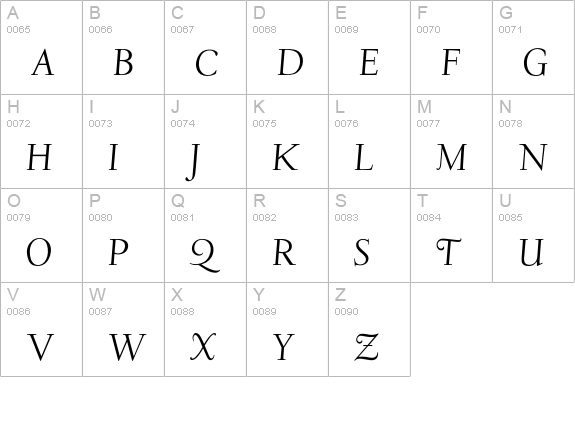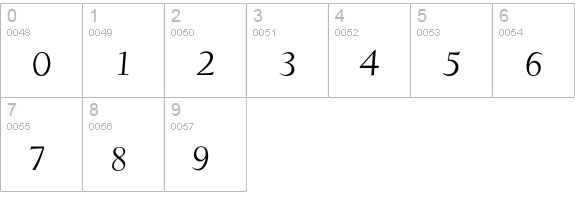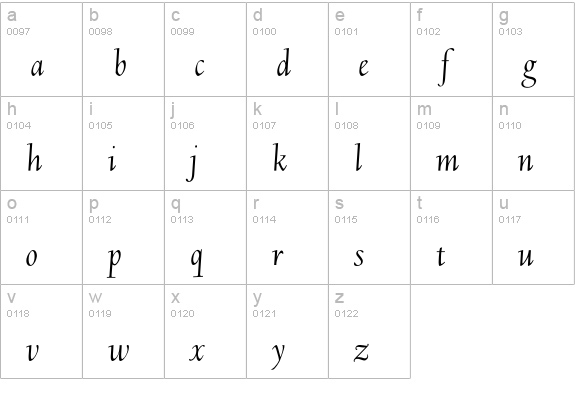
ChampagneItalic Font Details
ChampagneItalic font is a sophisticated and elegant typeface that exudes luxury and class. With its sleek and stylish design, this font is perfect for adding a touch of glamour to any project. The delicate curves and graceful letterforms of ChampagneItalic make it a standout choice for wedding invitations, branding, and other high-end design projects. What's even better is that ChampagneItalic is available for free! You can easily download this stunning font at FontsMarket.com and elevate your creations with its timeless beauty. Whether you're designing a chic logo or creating elegant stationery, ChampagneItalic will add a touch of refinement to your work. So don't miss out on the opportunity to enhance your designs with this exquisite font, download ChampagneItalic today and let your creativity shine!